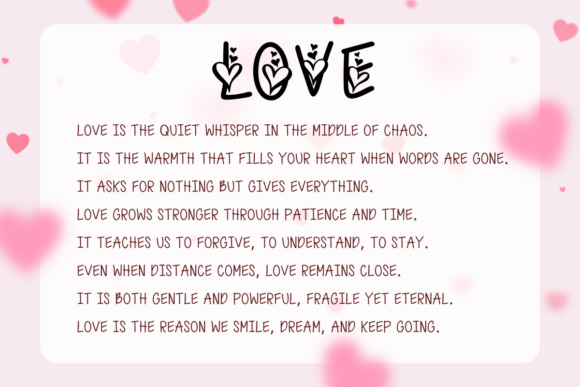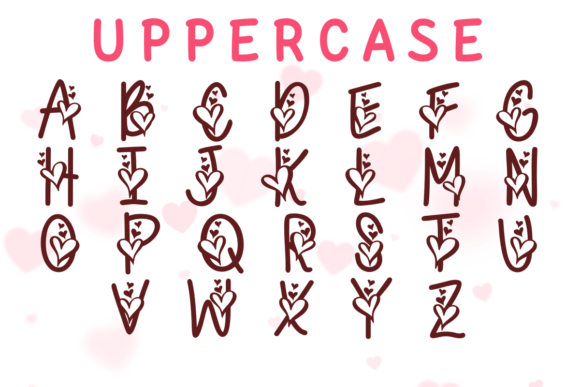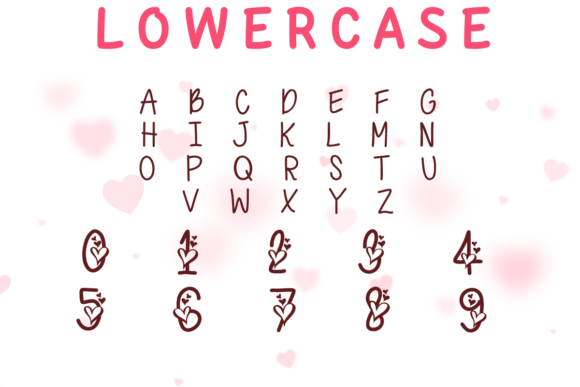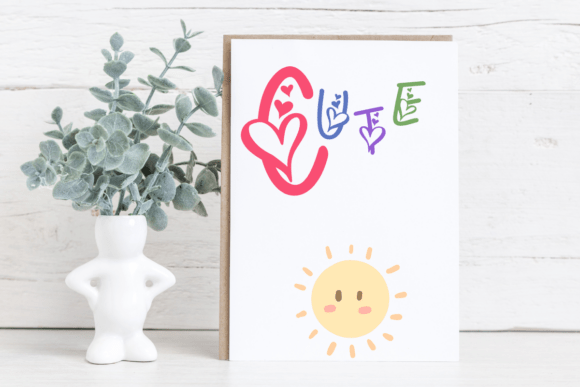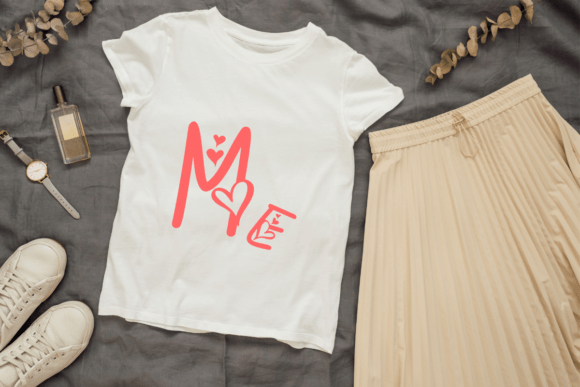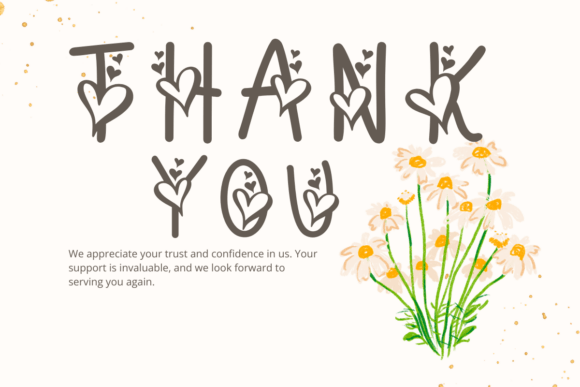
Introduction to Love Doodle Heart Font
Do you remember the first time you saw a hand-drawn doodle that captured the essence of your love story? For many of us, it’s a moment that’s etched in our memories, and one that we cherish forever. As designers, we often seek to recreate that magic in our work, and the Love Doodle Heart Font is here to help us do just that.
This adorable decorative font is a game-changer for any creative project that requires a touch of romance and whimsy. With its casual, hand-drawn strokes and integrated doodle hearts, the Love Doodle Heart Font is the perfect design resource for designers looking to add a personal touch to their work.
Key Features of Love Doodle Heart Font
- High-quality design resource ideal for creative projects, such as greeting cards, invitations, and social media graphics.
- Unique and playful doodle heart design, perfect for adding a touch of whimsy to your designs.
- Easy to use and customize, making it a great addition to any design project.
- Perfect for designers and artists looking for a unique and creative design resource.
Honest Review: Love Doodle Heart Font
I recently stumbled upon the Love Doodle Heart Font and I must say it’s a delightful addition to my design library. The font is perfect for creating playful and whimsical designs, making it an excellent choice for creative projects that require a touch of romance and charm.
Here are some of the things that work well for this font:
- ✨ Perfect for creating a playful and whimsical atmosphere
- ✨ Suitable for a wide range of design projects, from invitations to social media graphics
- ⚠️ Limited character set, which may not be suitable for longer text-based projects
- ⚠️ Not ideal for professional or formal designs, as it may come across as too playful
Overall, I’m impressed with the Love Doodle Heart Font and I think it’s a great addition to any designer’s library. While it may have some limitations, its high quality and versatility make it a valuable design resource.
The Love Doodle Heart Font is perfect for a variety of creative projects, including Valentine’s Day cards, wedding invitations, and social media graphics. You can also use it to add a touch of whimsy to your blog posts, emails, and newsletters.